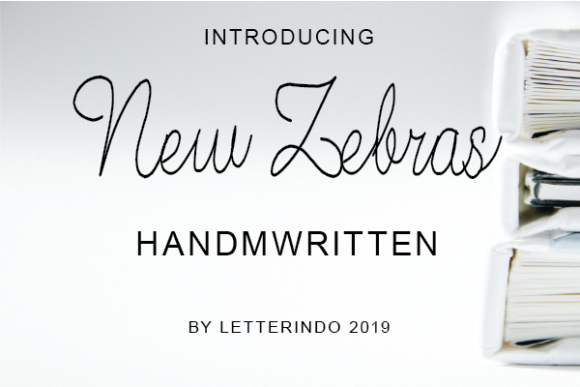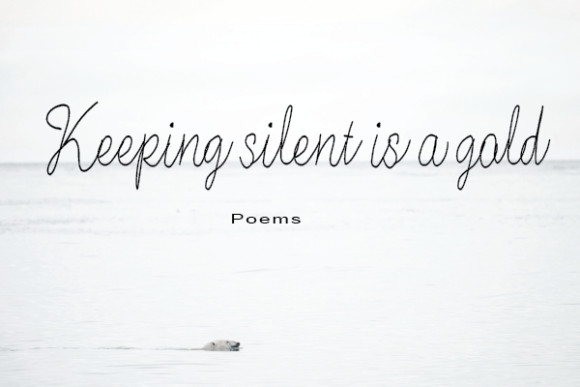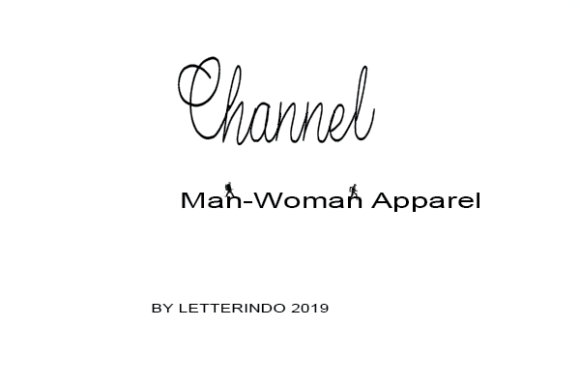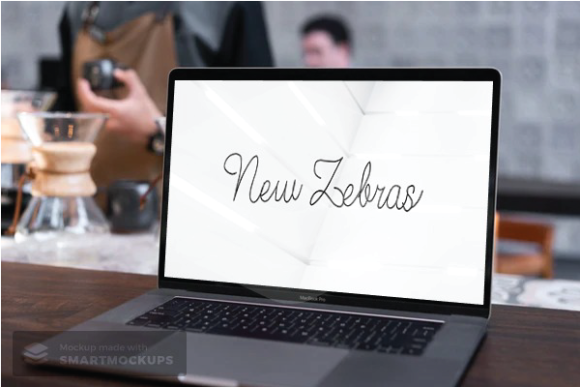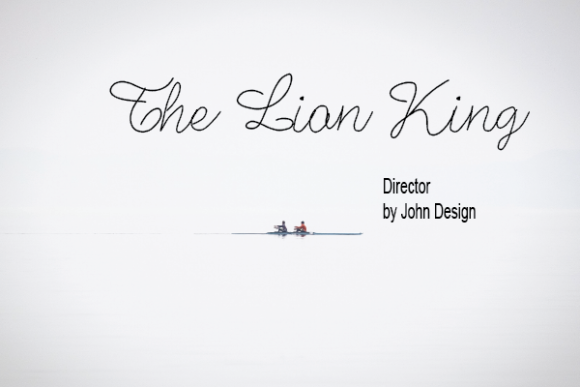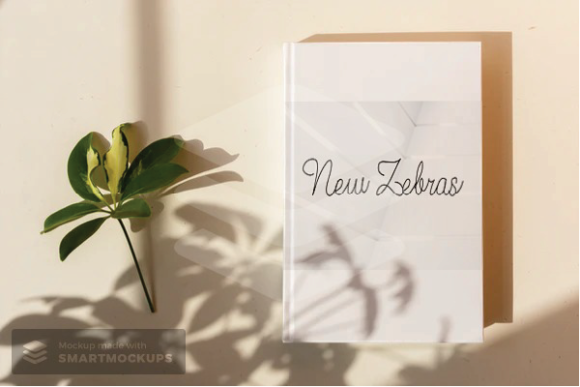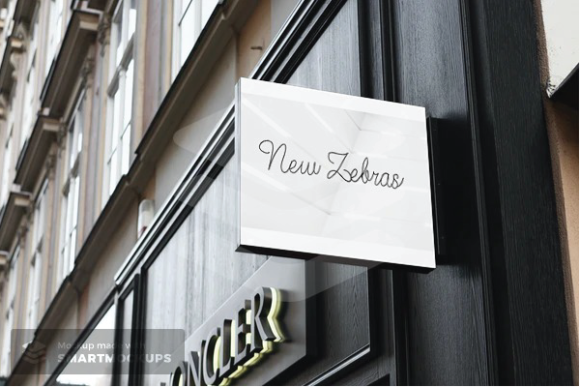
New Zebras Font
About New Zebras Font
New Zebras is a sweet, rounded calligraphy handwritten font. It will elevate a wide range of design projects to the highest level, be it branding, headings, wedding designs, invitations, signatures, logos, labels, and much more!